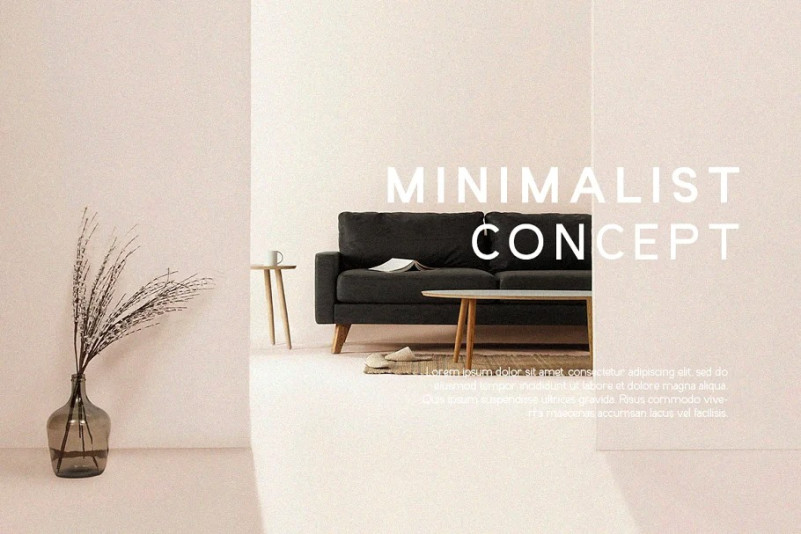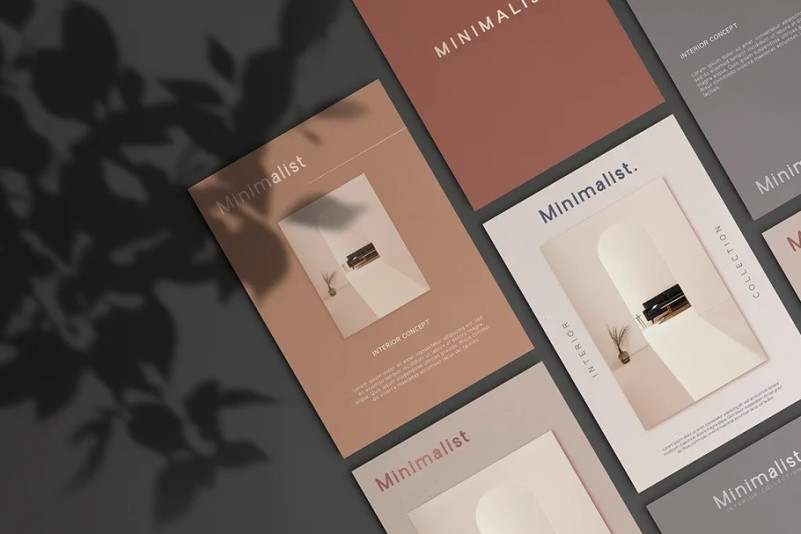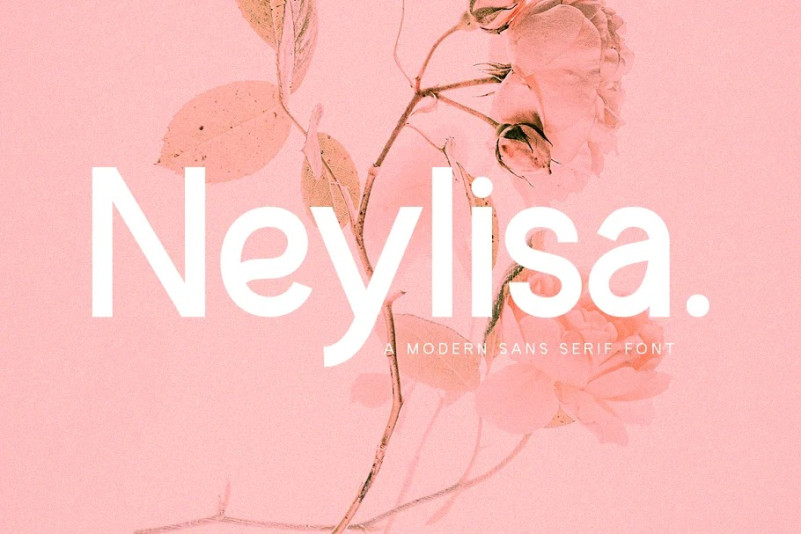
Neylisa Font
Neylisa Sans Serif Font is a bespoke & minimalist sans serif typeface that is perfectly suited for designing unique logos & brands, bold packaging, powerful website headers, and so much more!